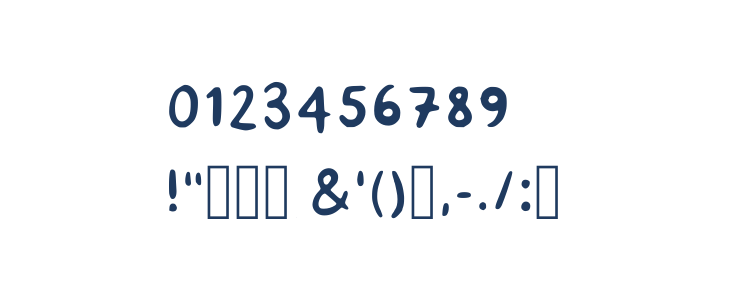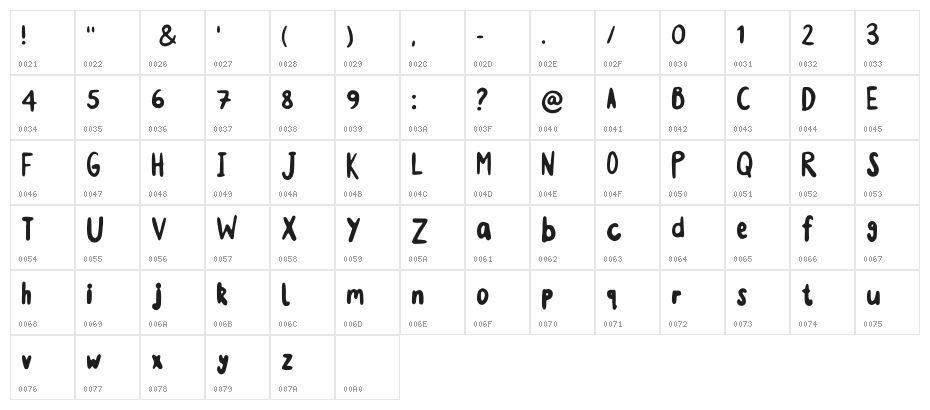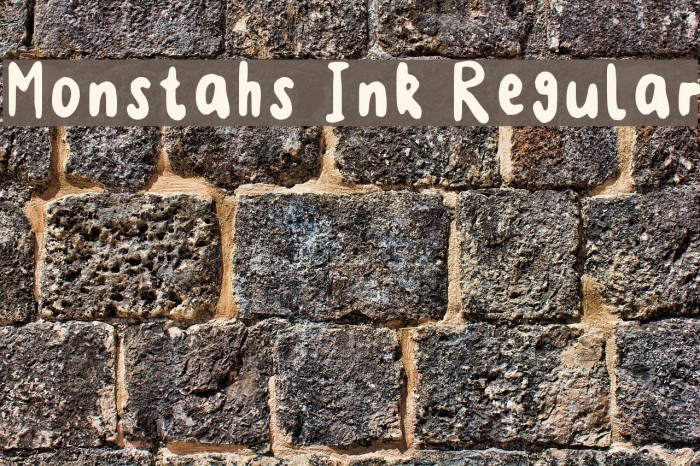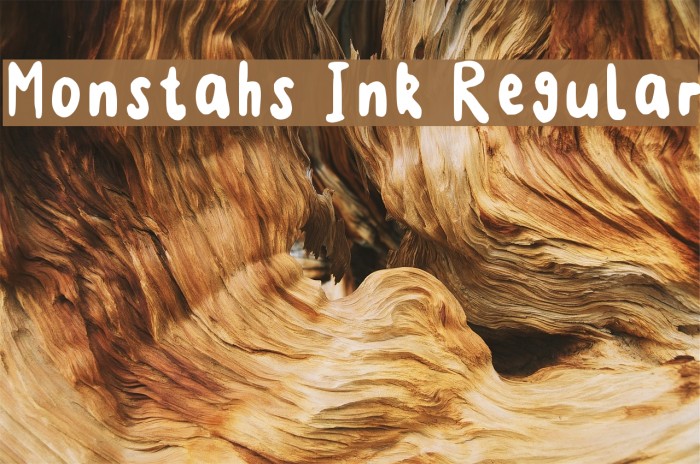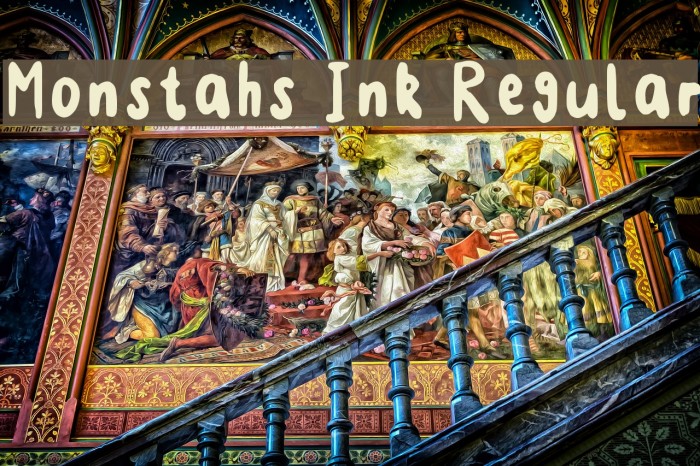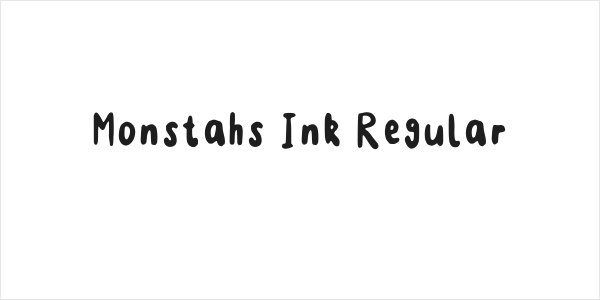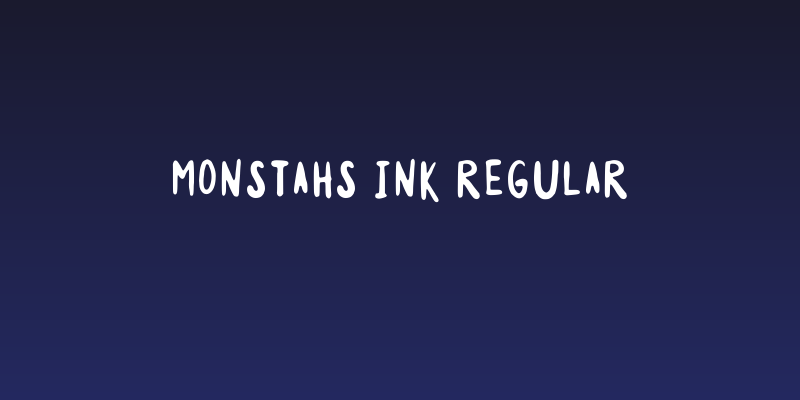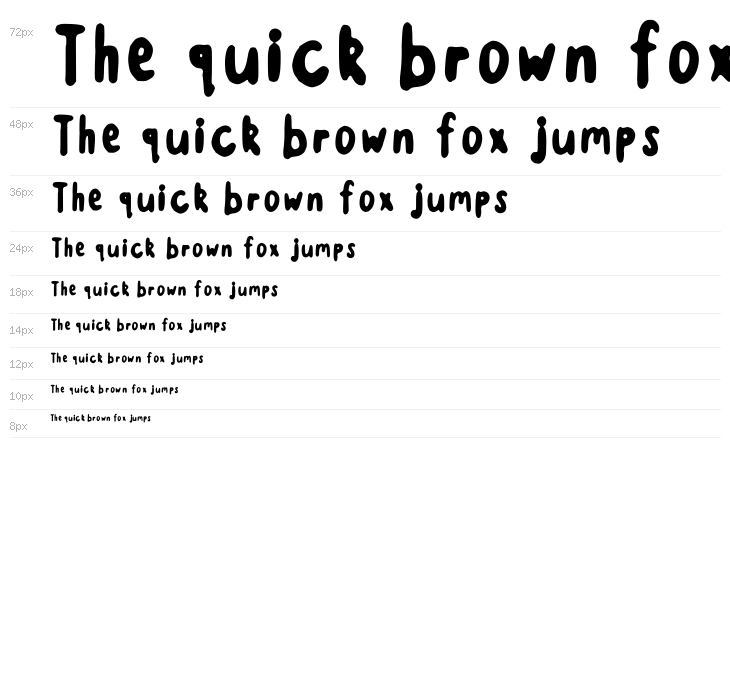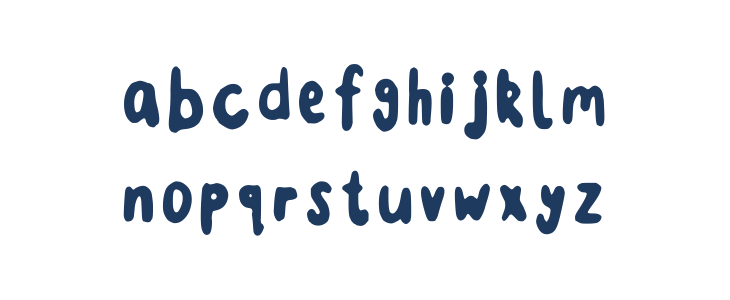
Monstahs Ink Regular Font
Monstahs Ink Regular Description
This playful and quirky font features bold, rounded characters with a hand-drawn aesthetic. The letters have a whimsical, cartoon-like quality, making them perfect for designs that require a fun and informal touch. The uppercase and lowercase letters maintain a consistent style, with slightly irregular shapes that add to the font's charm. The numerals and special characters are equally expressive, ensuring a cohesive look across all text elements. This font is ideal for projects that aim to convey a sense of creativity and lightheartedness.
| Overall Style | Whimsical, Playful |
| Proposed Projects | Ideal for children's books, comic strips, playful branding, and creative posters. |